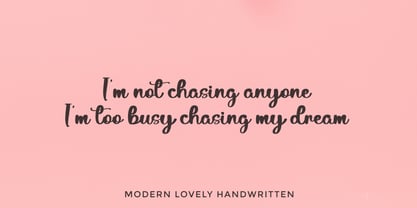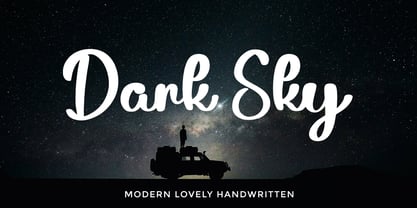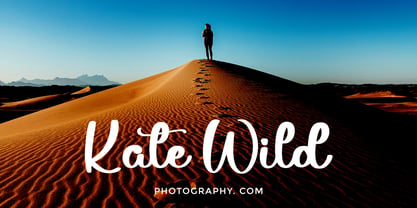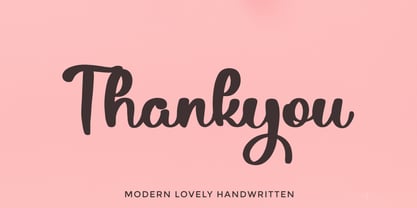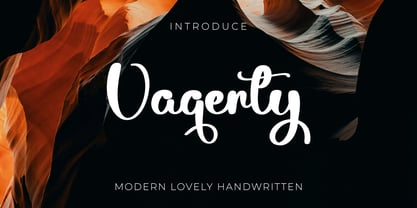
Vaqerty
by Ayska
The Vaqerty Font Family was designed by Dhoni Trihatmoko and published by Ayska. Vaqerty contains 1 styles. More about this family
Vaqerty font is fun, bold, and readability, perfect for t-shirt designs, quotes, wall art, food products, ads, banners, social media posts, and more. You can use it for taking notes, writing a diary, or making greeting cards. Something original, organic, simple and ordinary can be something amazing if you put it in the right place with the right combination.
Designers: Dhoni Trihatmoko
Foundry: Ayska